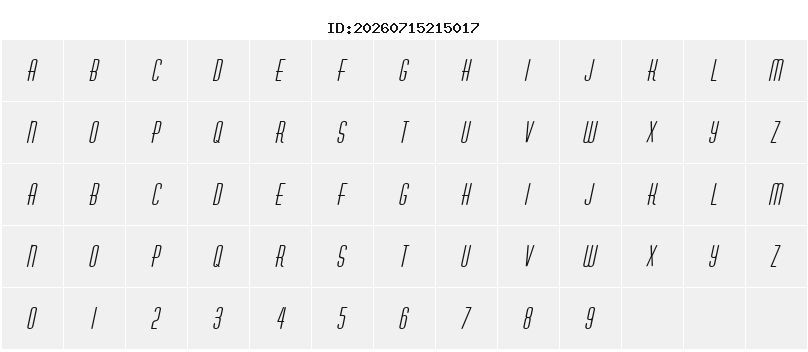
Astute Preview
• Font Name: Astute
• Font ID: Weatherly Systems, Inc. Astute Italic
• Full Font Name: Astute Italic
• PostScript Name: AstuteItalic
About Astute.ttf
Astute.ttf is a modern, elegant sans-serif font designed for ultimate readability and visual harmony. Perfect for branding, headlines, web design, and print materials.